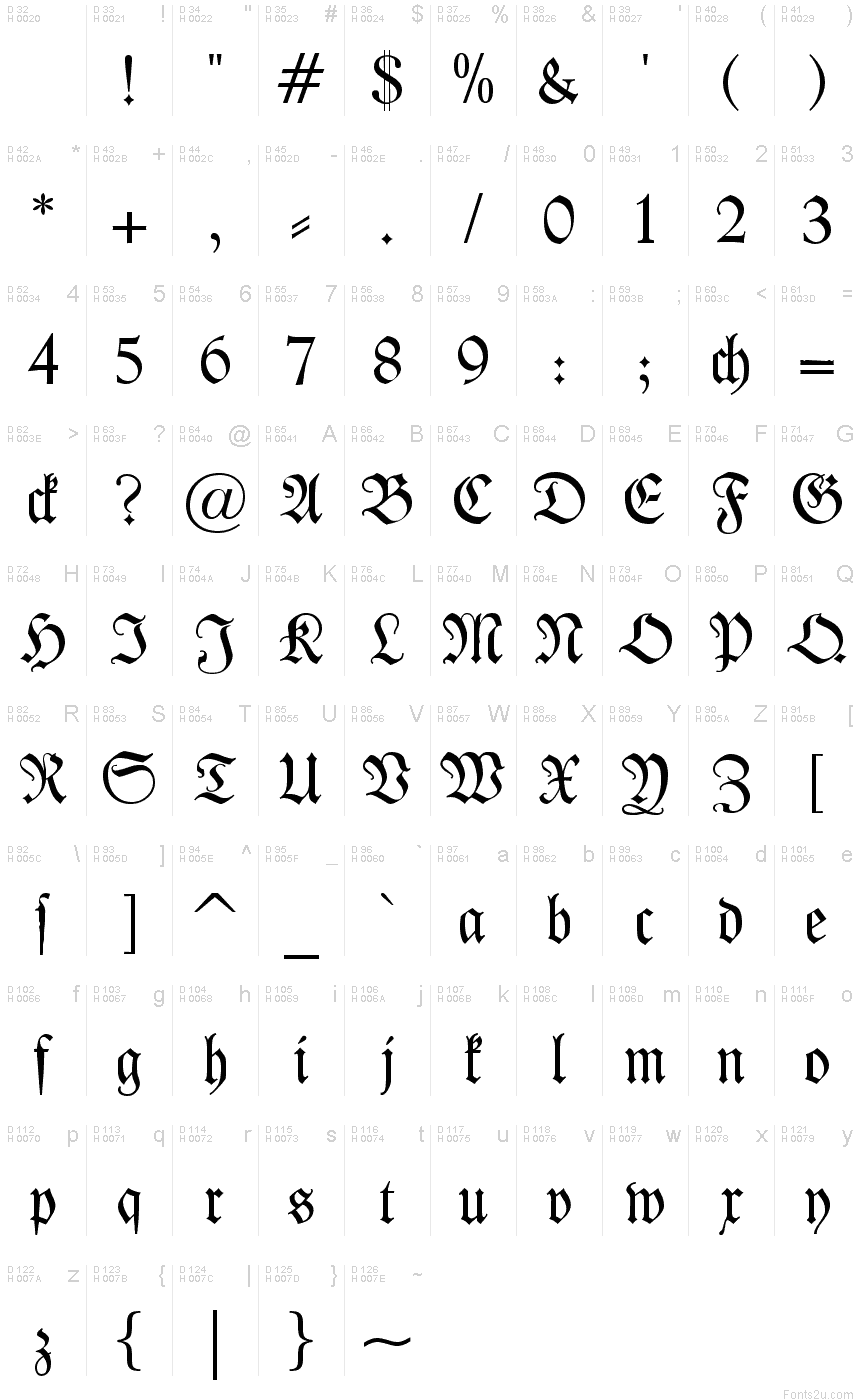
Kleist-Fraktur
Kleist-Fraktur font by Dieter Steffmann is a free gothic medieval typeface with dense, inky strokes and sharply folded curves that feel pulled straight from an old prayer book. The sweeping capitals, crisp corners, and slightly rugged texture give every word a ceremonial weight, while the rhythm of the letters keeps longer titles surprisingly readable. It brings the drama of historic Fraktur without feeling clumsy or overly ornate.
Using Kleist-Fraktur, you can add authentic gravitas to fantasy book covers, metal band logos, medieval event posters, vintage beer labels, tattoo designs, and game UI titles. This free font shines at larger sizes where its intricate forms can breathe; pair it with a simple sans serif for body text to keep layouts clear and balanced.